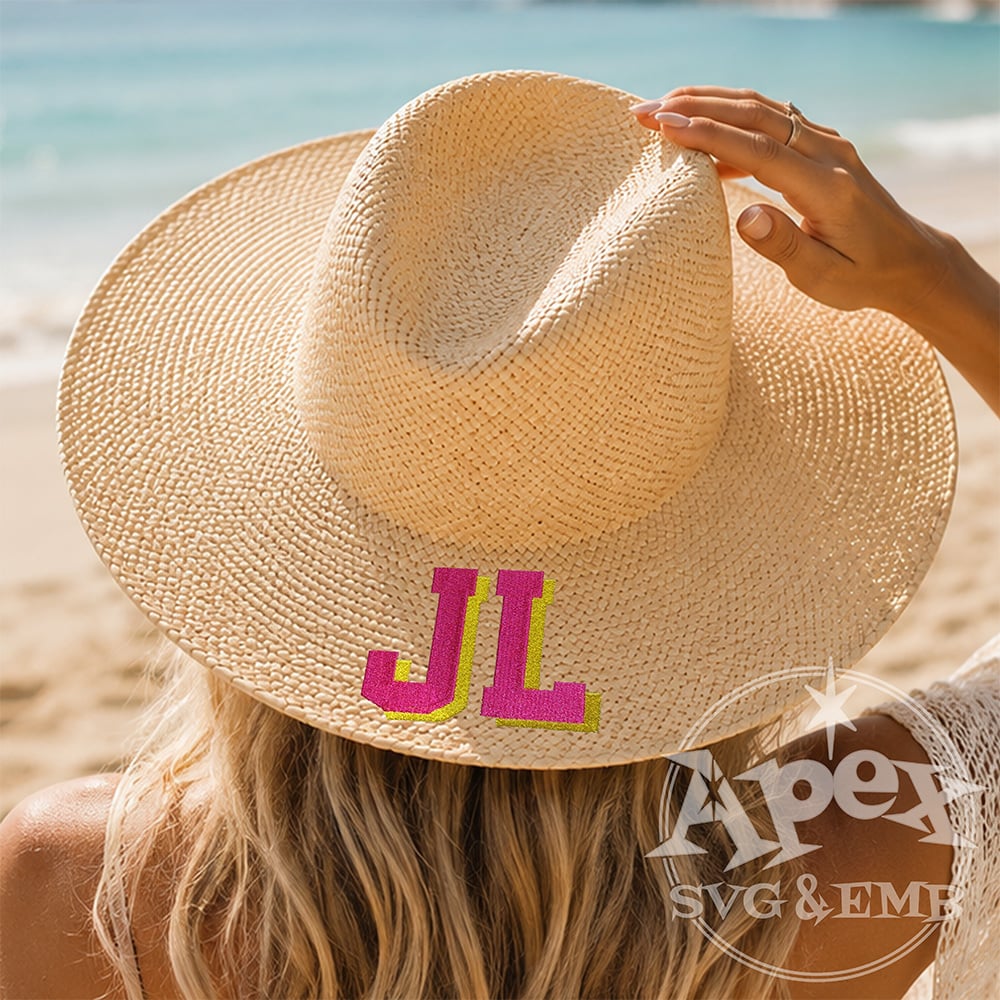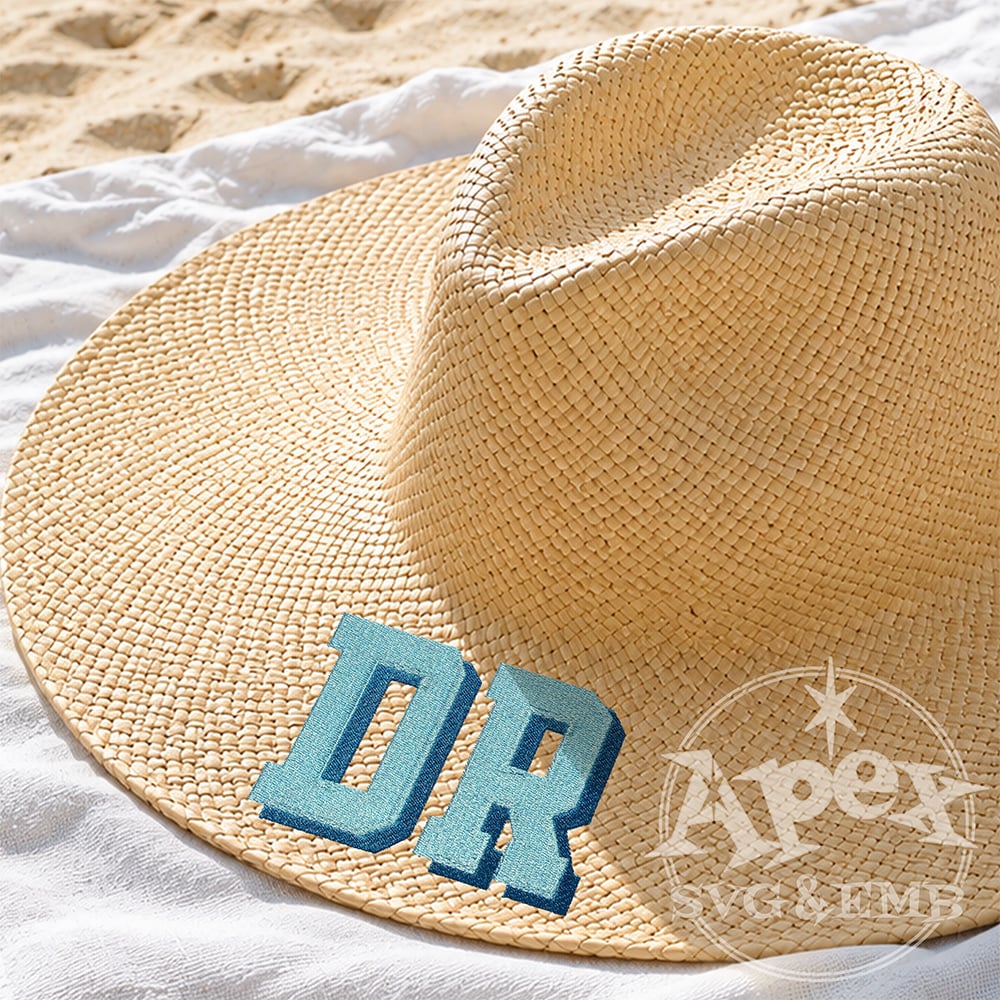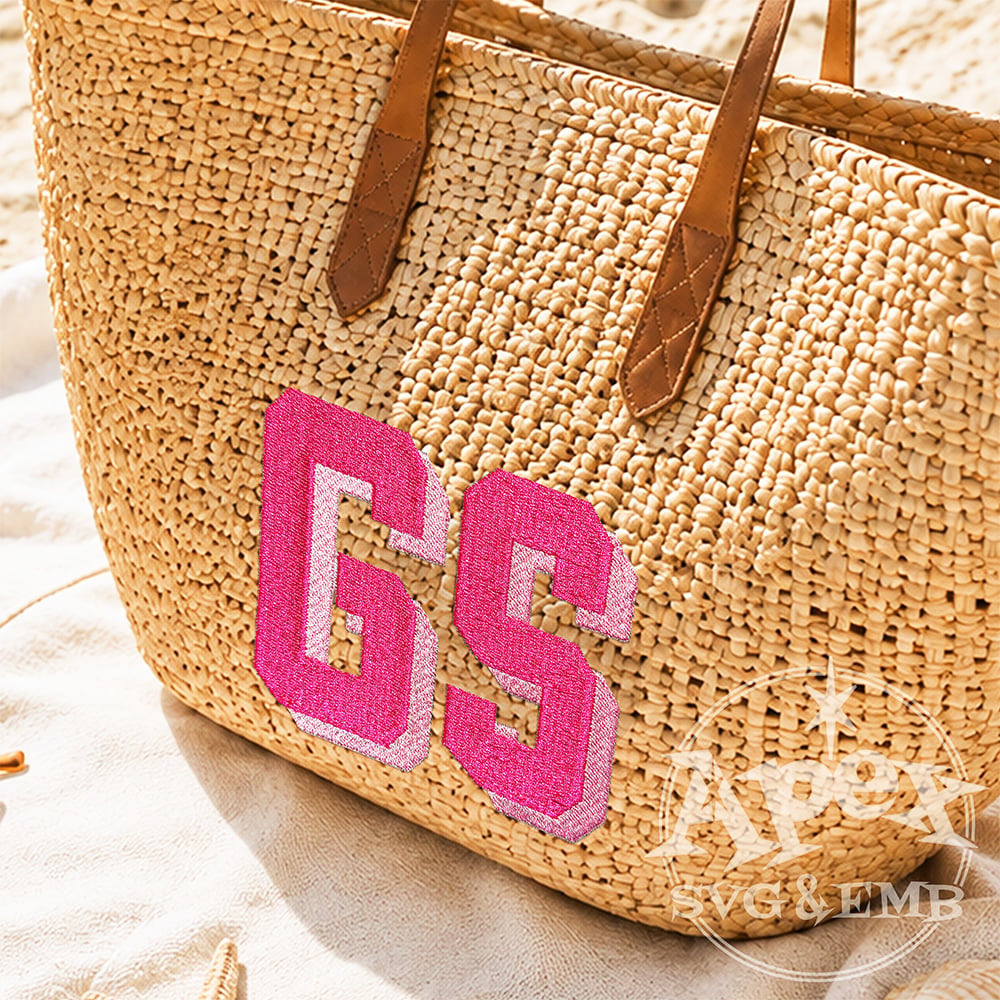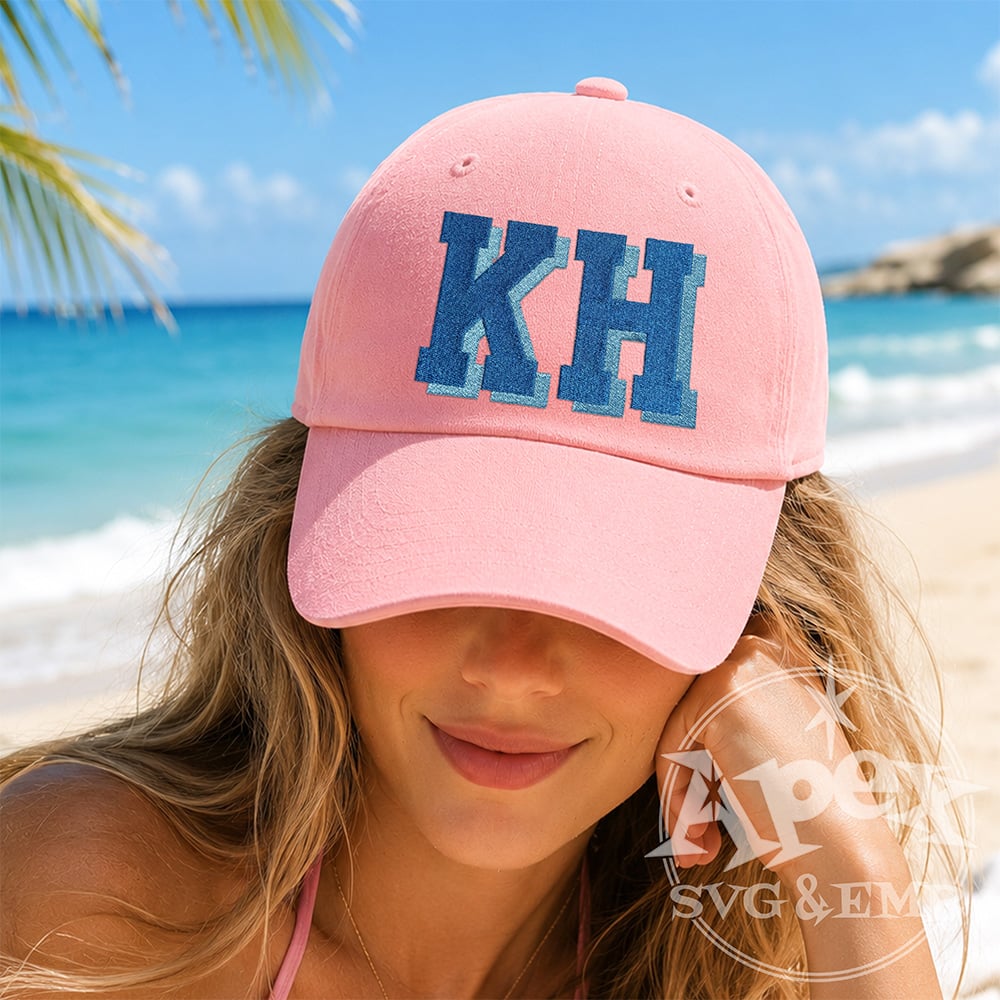
Shadow Stacked Athletic Block Machine Embroidery Font
Create Shadow Stacked style personalized gifts and home décor with this Athletic Block. South Pacific Monogram Embroidery Font. Classic with Tahiti stylish 2-color embroidery monogram set is perfect for customizing hats, linens, towels, baby gifts, tote bags, and more.
This Athletic Block with Shadow Stacked embroidery font collection includes complete size sets with uppercase monogram letters designed for creating stunning 3-letter monograms. Each font comes professionally digitized for smooth stitching and excellent embroidery results. Apex has digitized machine embroidery fonts for over 25 years.
- Tall Shadow Athletic Block Font
- Perfect for 3-Letter Monograms
- Custom Home Décor Projects